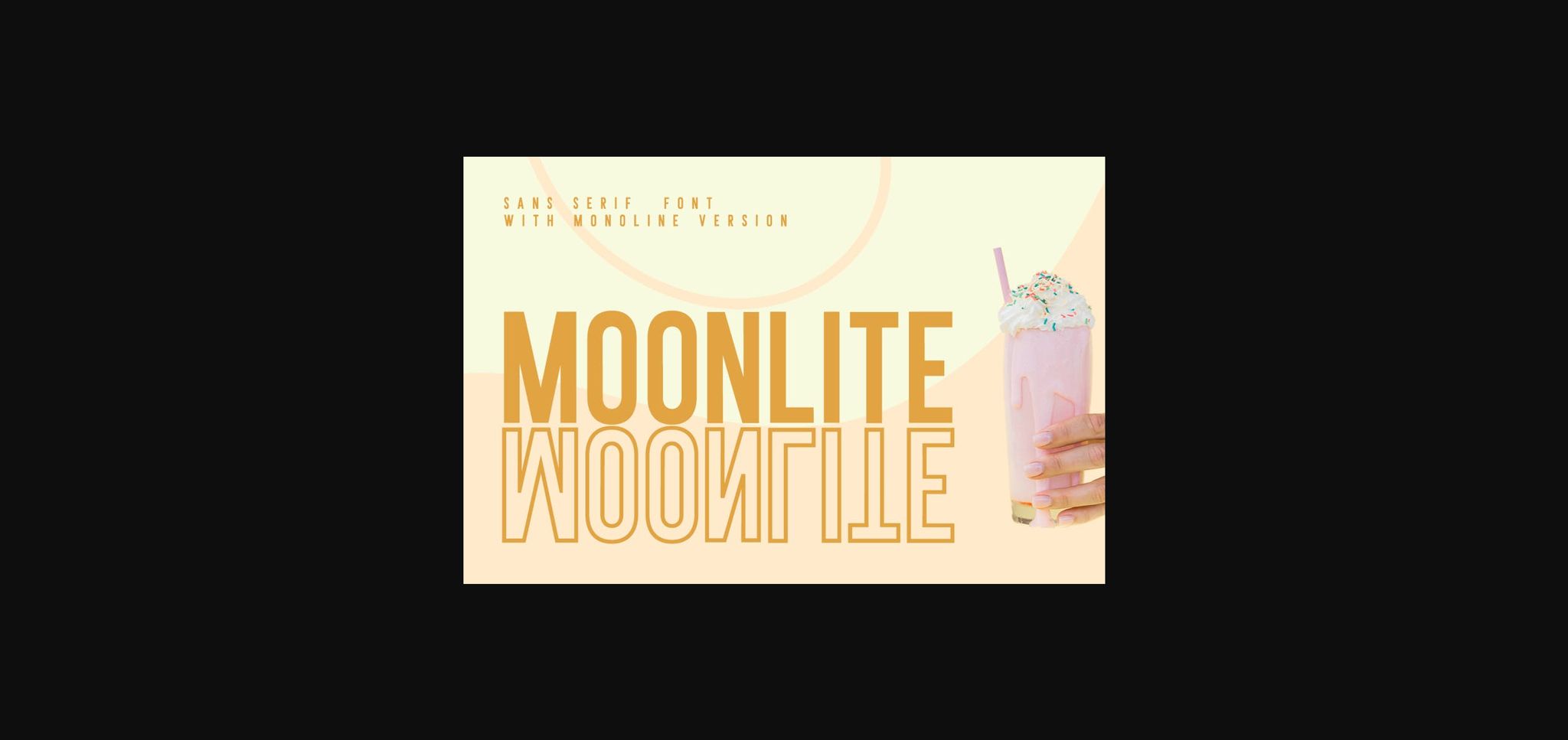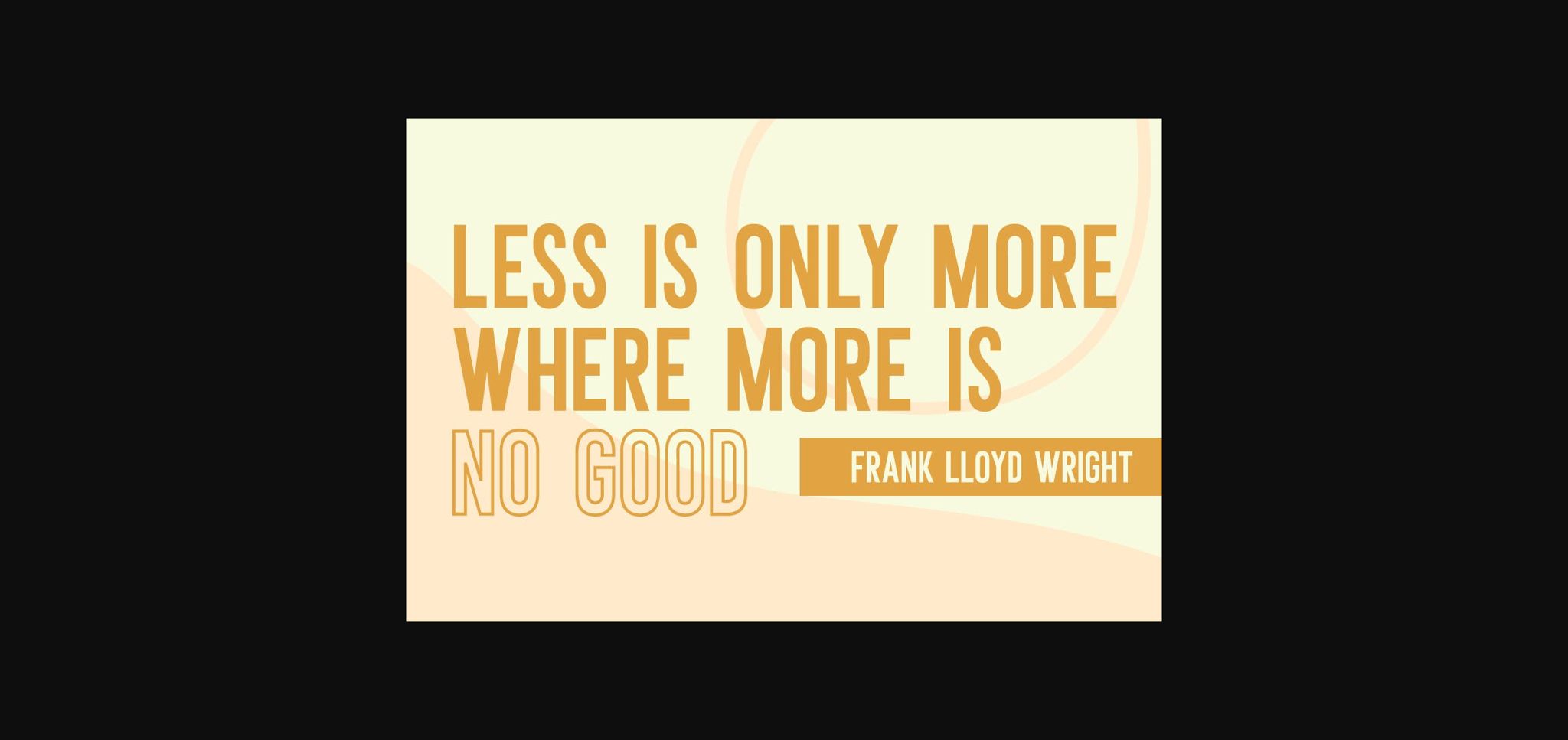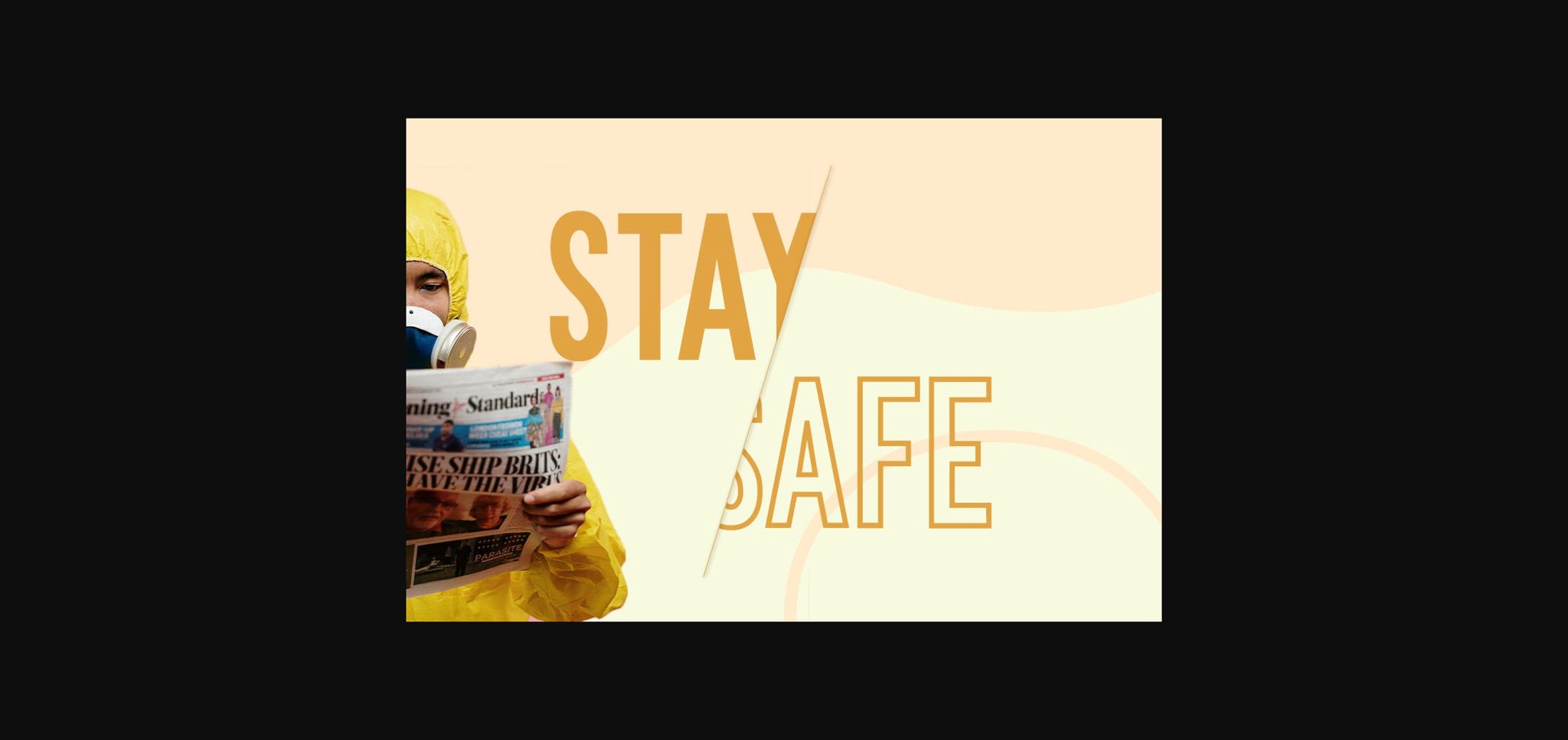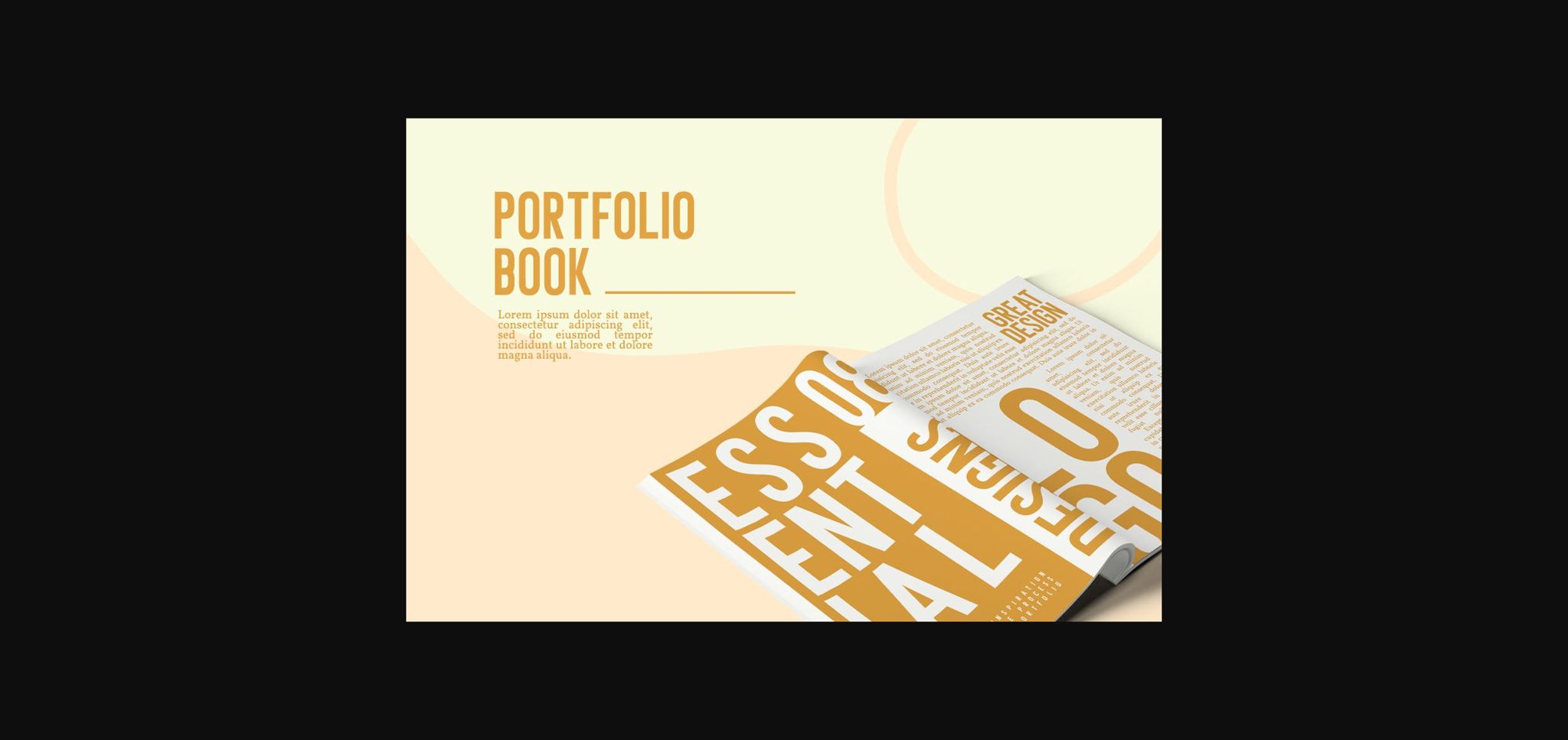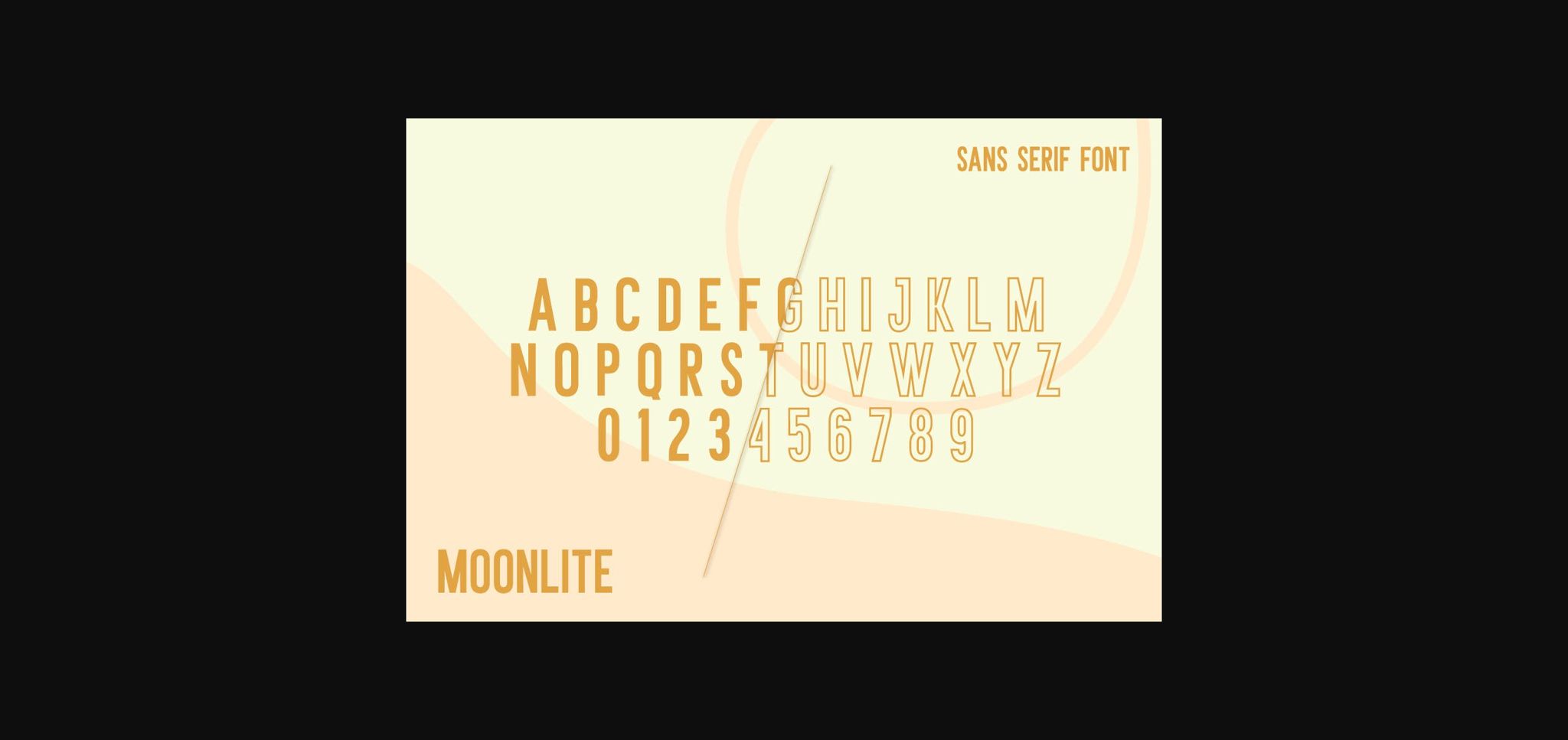
HomeSans Serif FontsMoonlite Font Sans Serif Fonts Moonlite Font FacebookXPinterestWhatsApp 1 of 8 ... Moonlite Font Poster 2... Moonlite Font Poster 3... Moonlite Font Poster 4... Moonlite Font Poster 5... Moonlite Font Poster 6... Moonlite Font Poster 7... Moonlite Font Poster 8... About Moonlite Font Moonlite is a minimal and neat sans serif font. It can easily be matched to an incredibly large set of projects, so add it to your creative ideas and notice how it makes them stand out! DOWNLOAD NOW People also explored Aeflone Monogram Q | Monofont Caps Q Font Stayhome Christmas Font Fixity Font Ketty Font Prevya Love One Font Masculine Absolute Font Naava Font 265 0 TagsMoonlite Font Previous articleVerno FontNext articleSelembe Font LEAVE A REPLY Cancel reply Comment: Please enter your comment! Name:* Please enter your name here Email:* You have entered an incorrect email address! Please enter your email address here Website: Save my name, email, and website in this browser for the next time I comment. Personal Use Free New Normal Personal Use Free Read more about this font Rhetorical Personal Use Free Read more about this font Miracles Personal Use Free Read more about this font Monogram Calligraphy Personal Use Free Read more about this font BLOG Free vs Paid Fonts: Why Investing in Premium Fonts Is Worth It Free vs Paid Fonts: Why Premium Fonts Are Worth It in 2025 The debate of free vs paid fonts continues in the design world. While... Free Fonts Risk: Why Free Fonts Can Be Dangerous for Designers Best Fonts for YouTube Videos: Make Your Thumbnails Stand Out Transform Your Website: Elevate Your Typography with 7 Best Web Font Generators